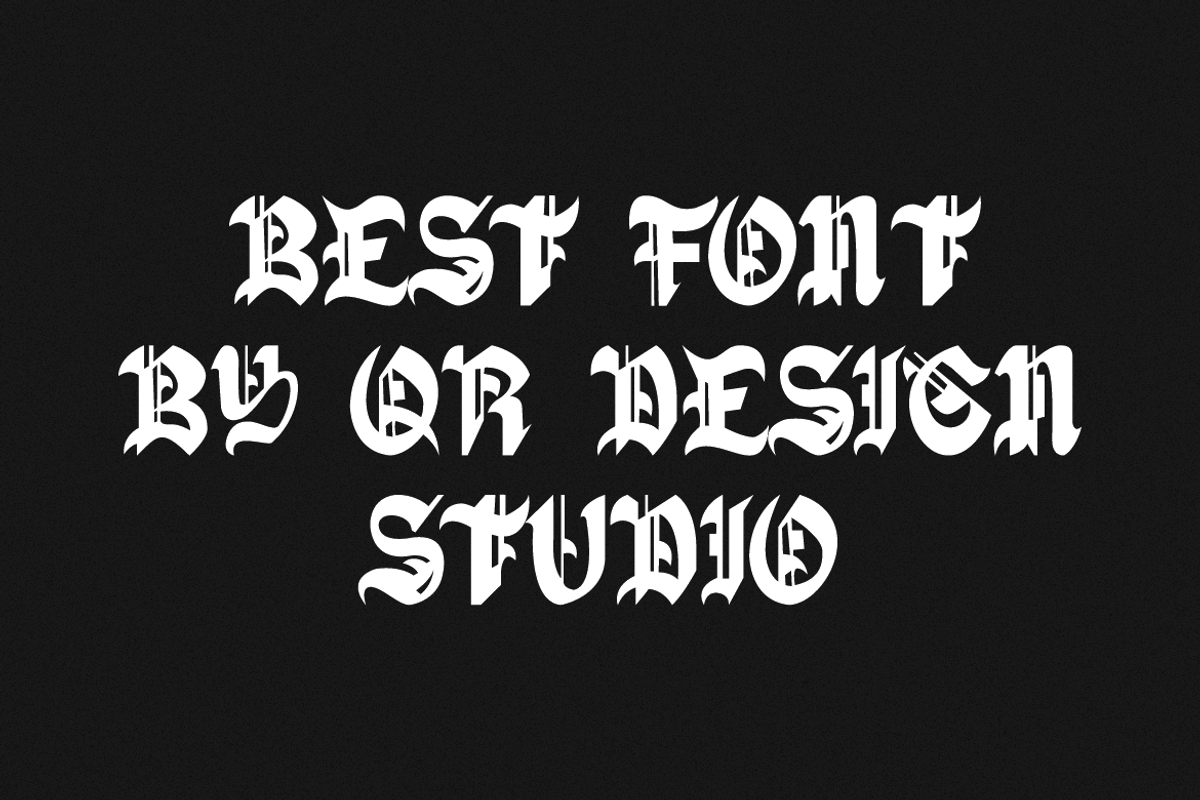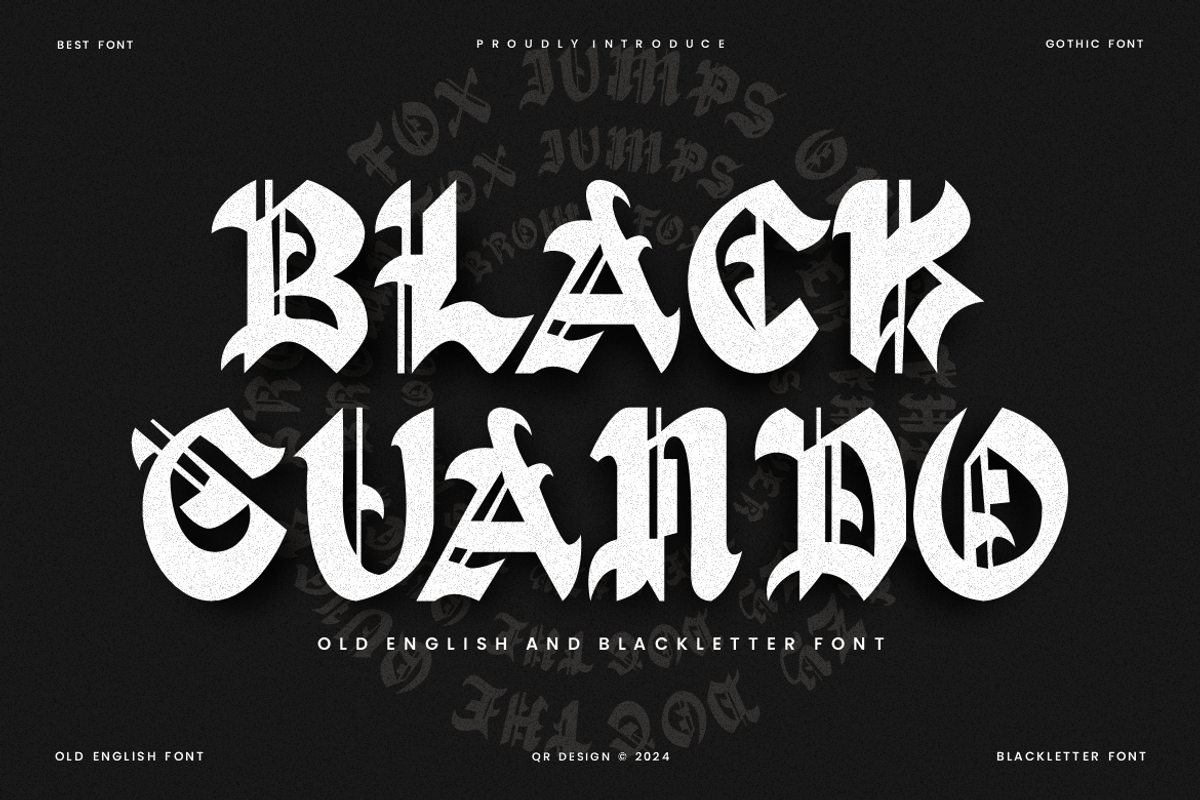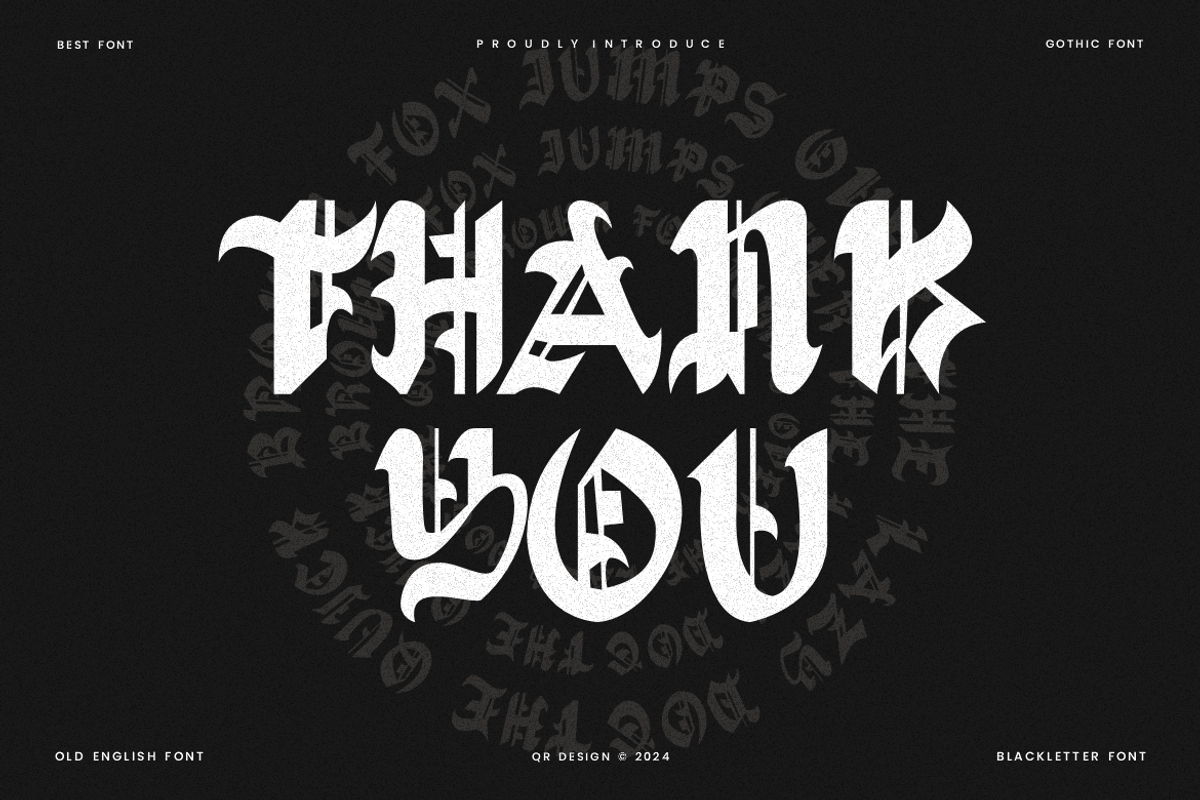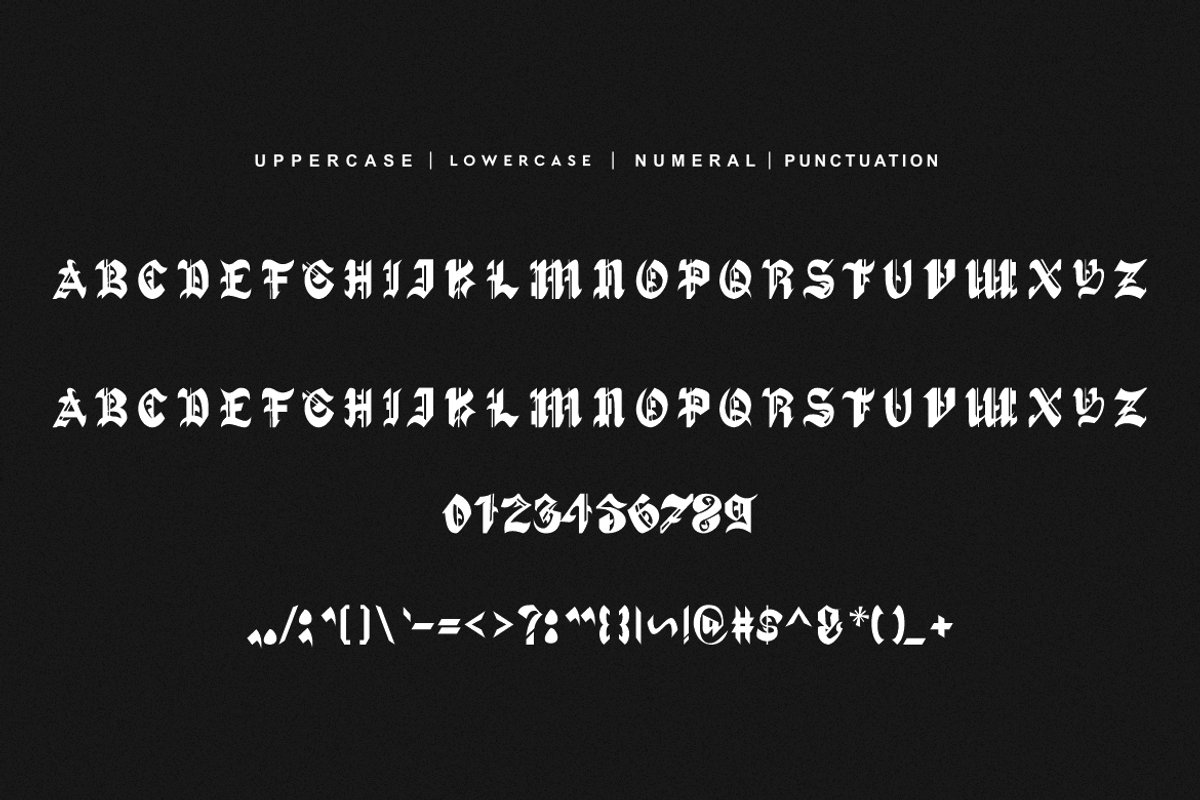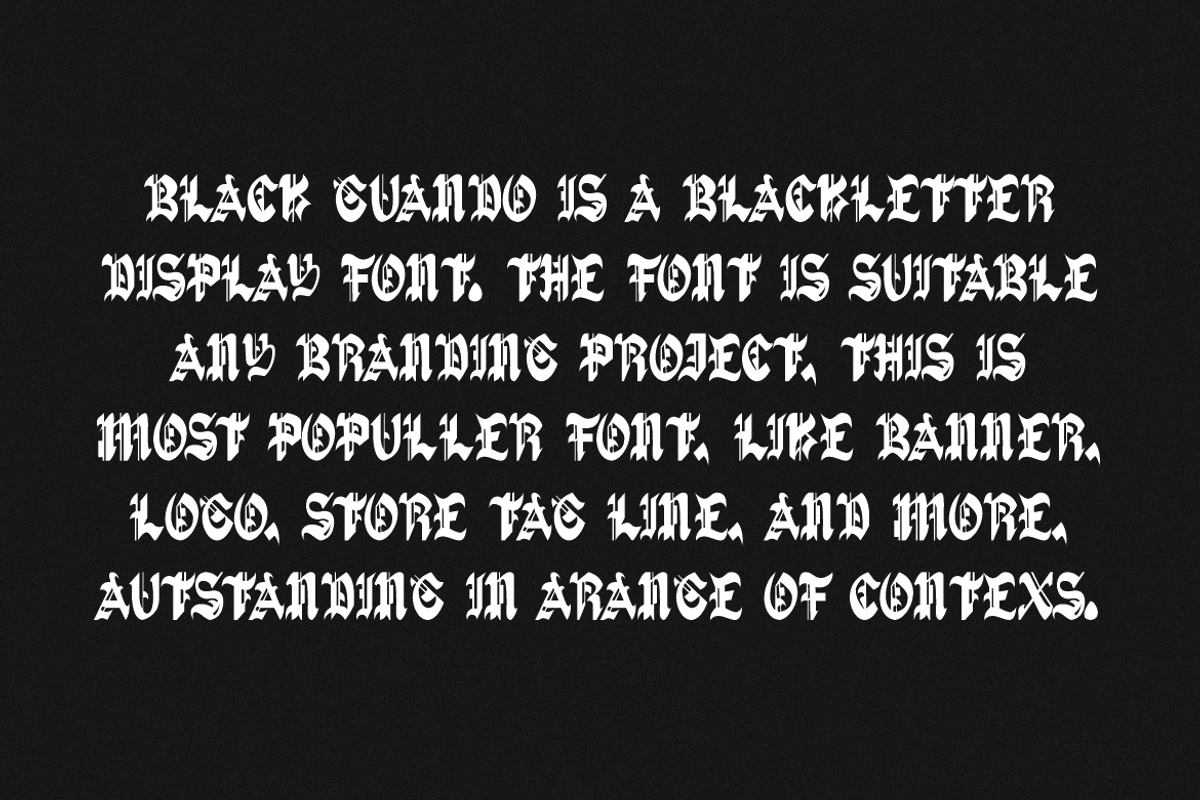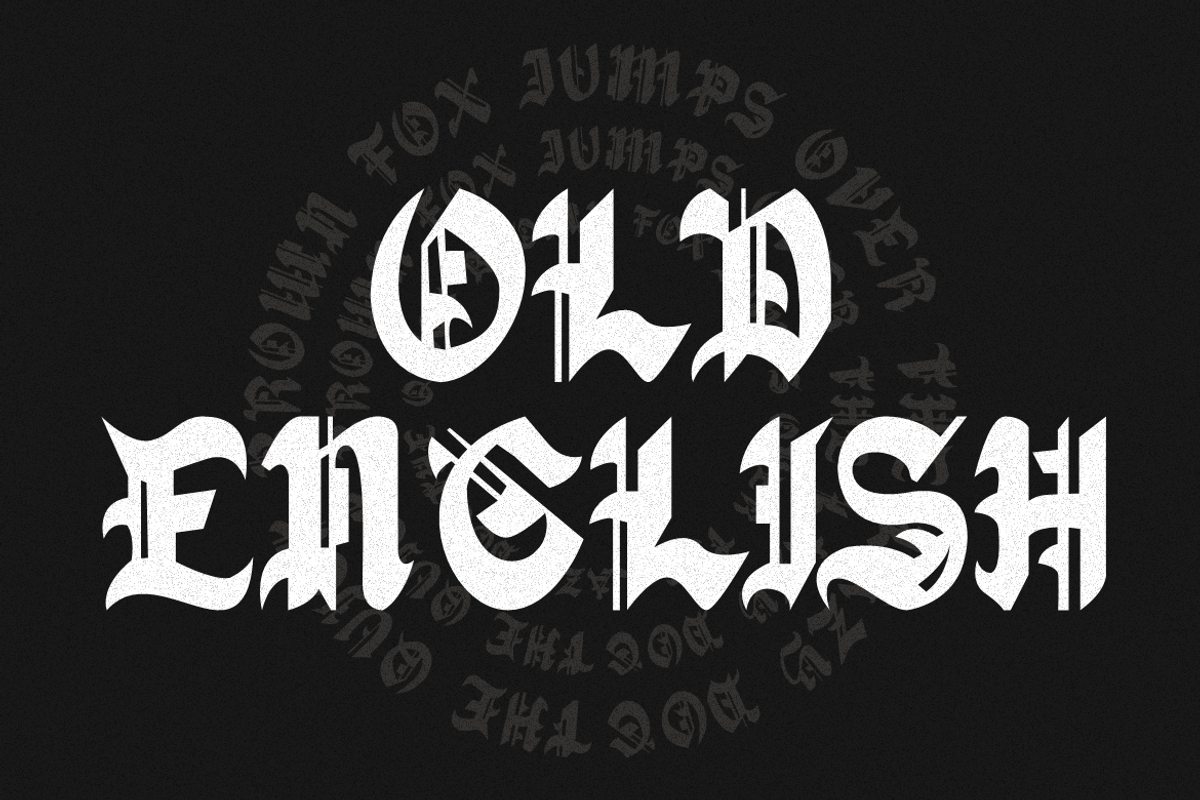
Black Guando - Old English Font
Black Guando - Old English Display Font is a bold and authentic display font. The font is suitable for any branding project like poster, logo, sport, and many more. Outstanding in a wide range of contexts.